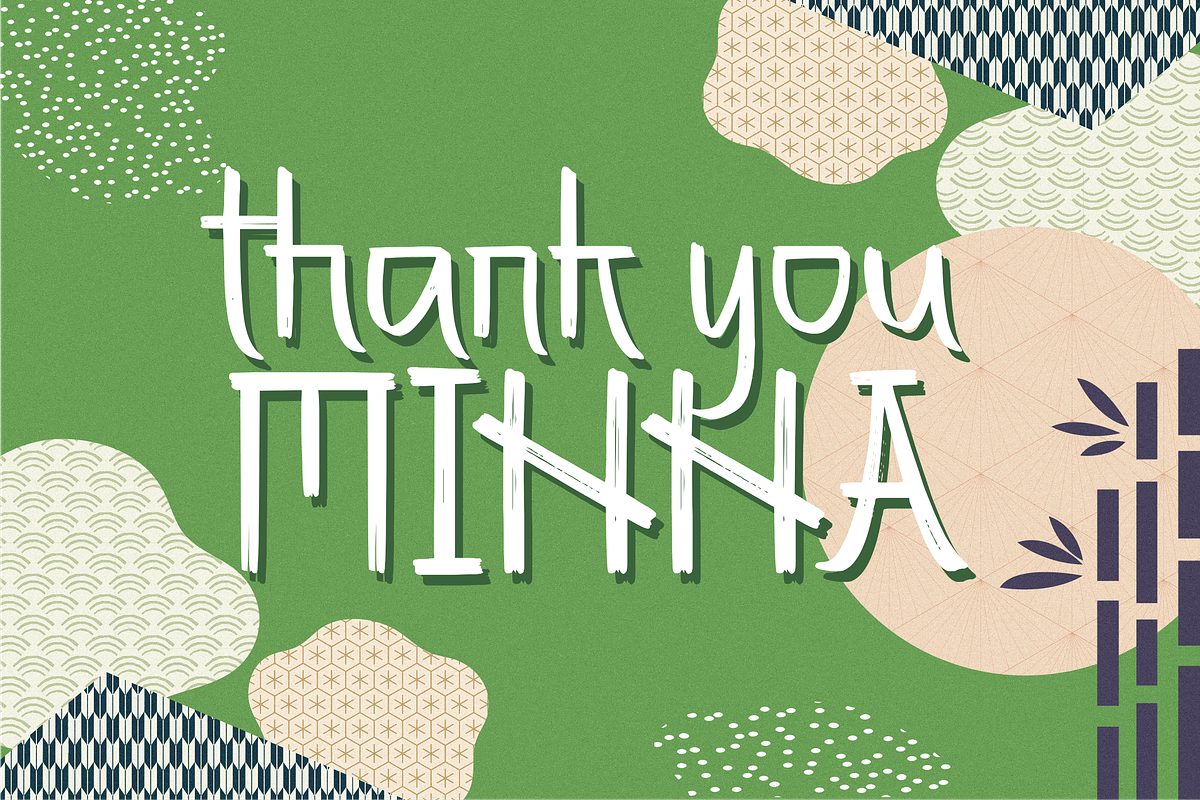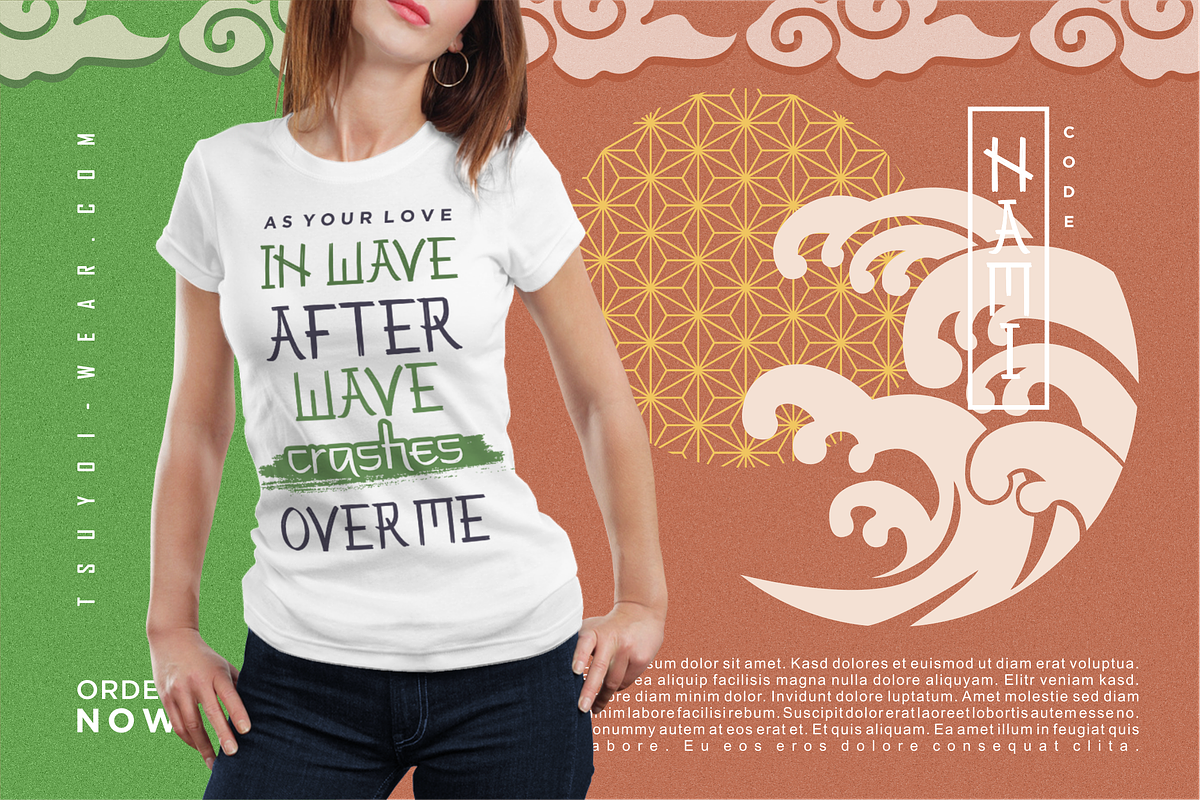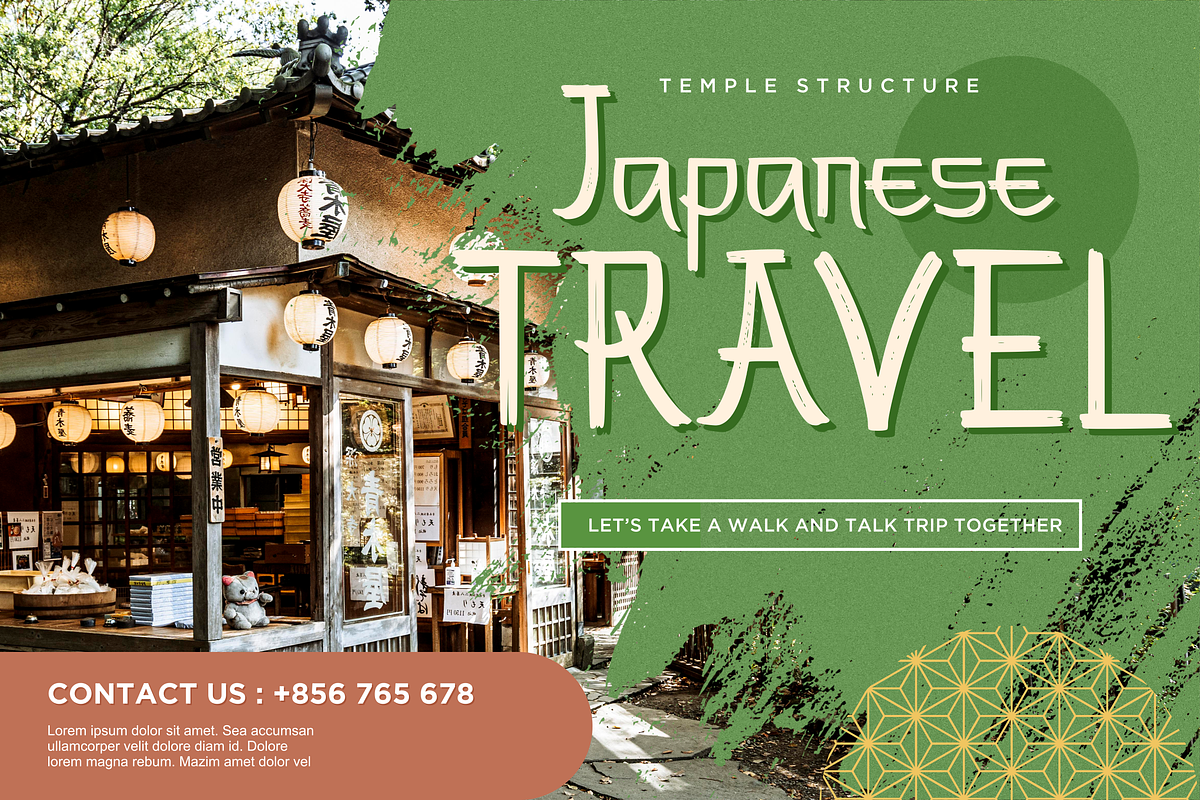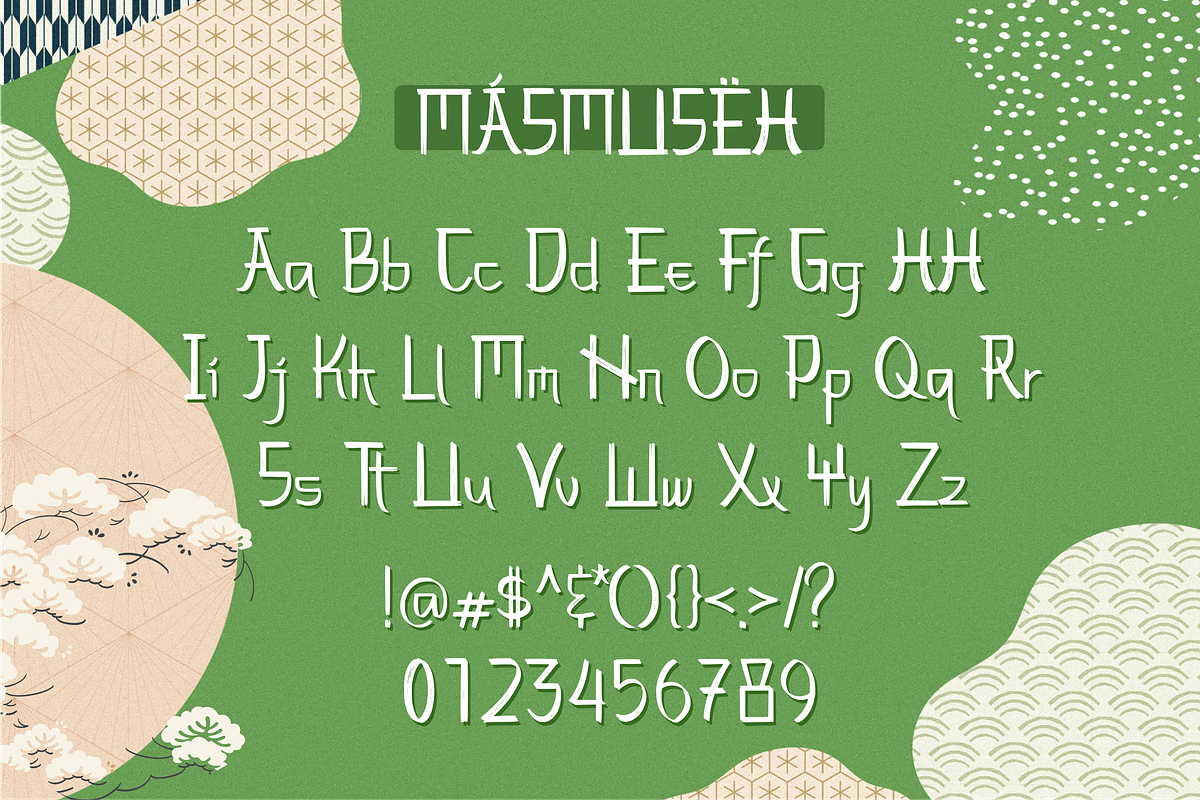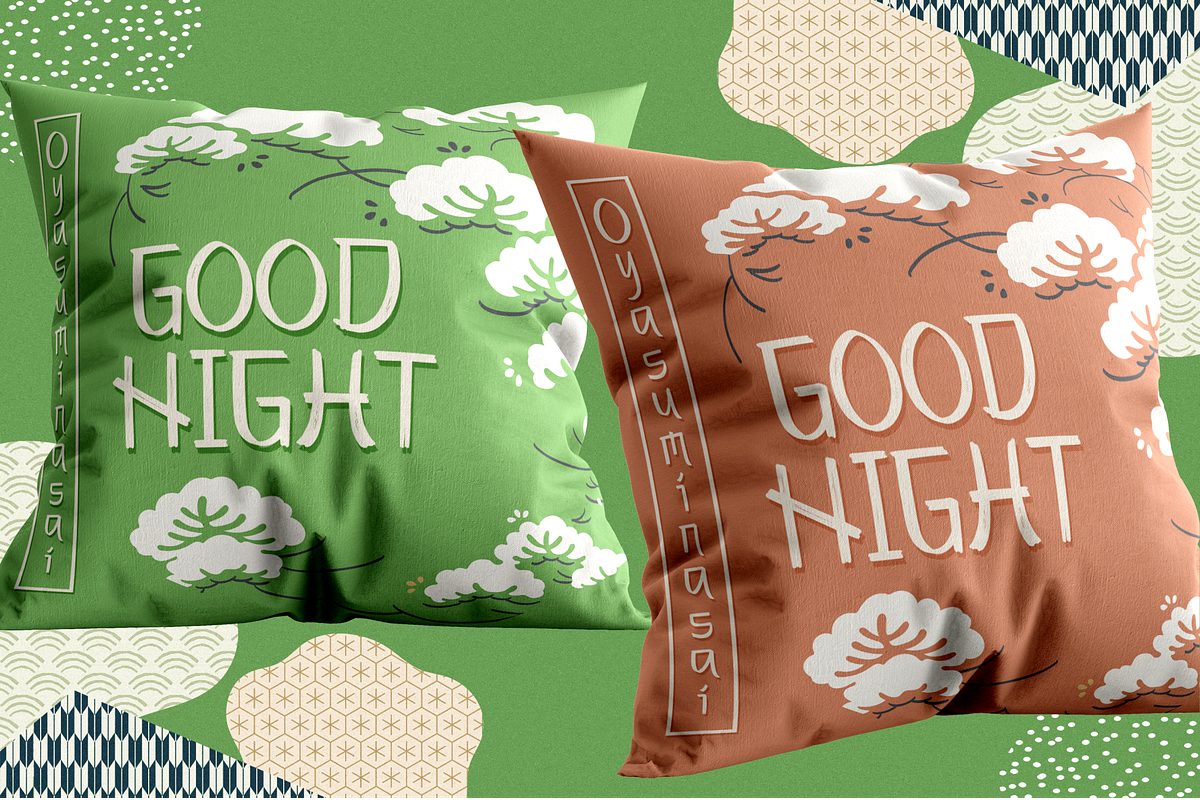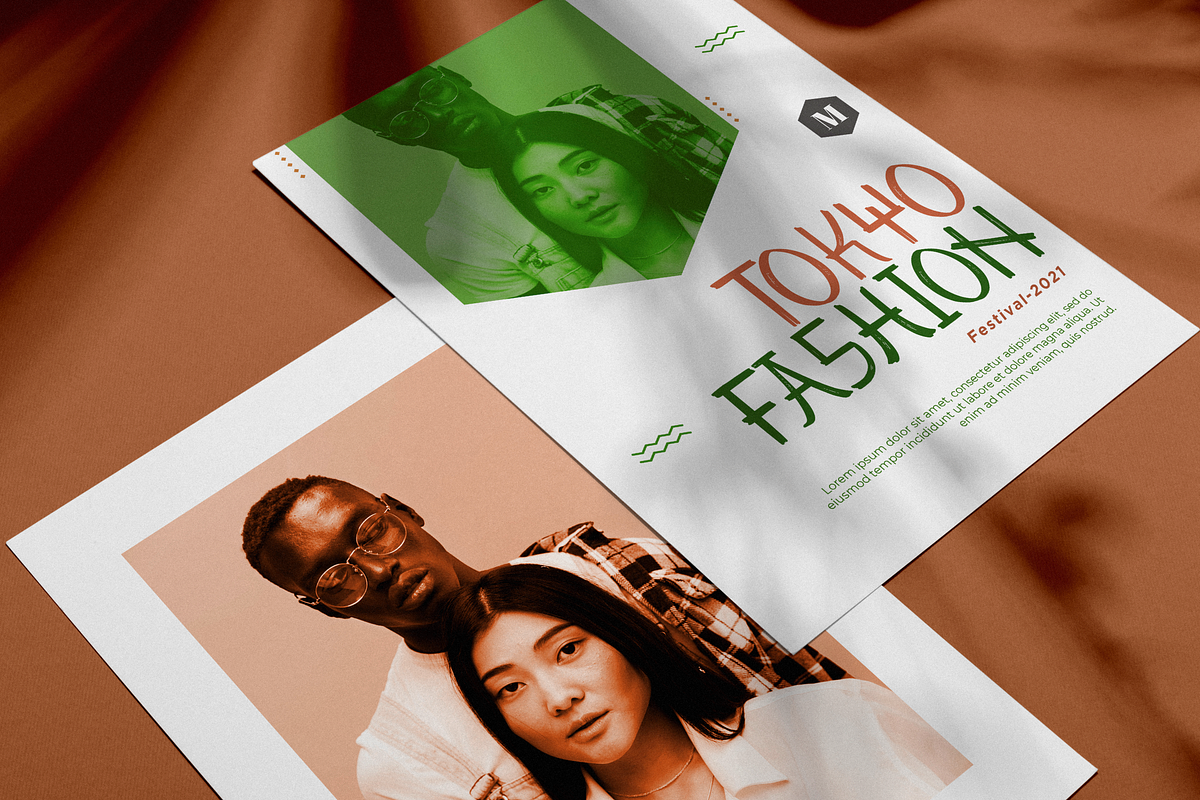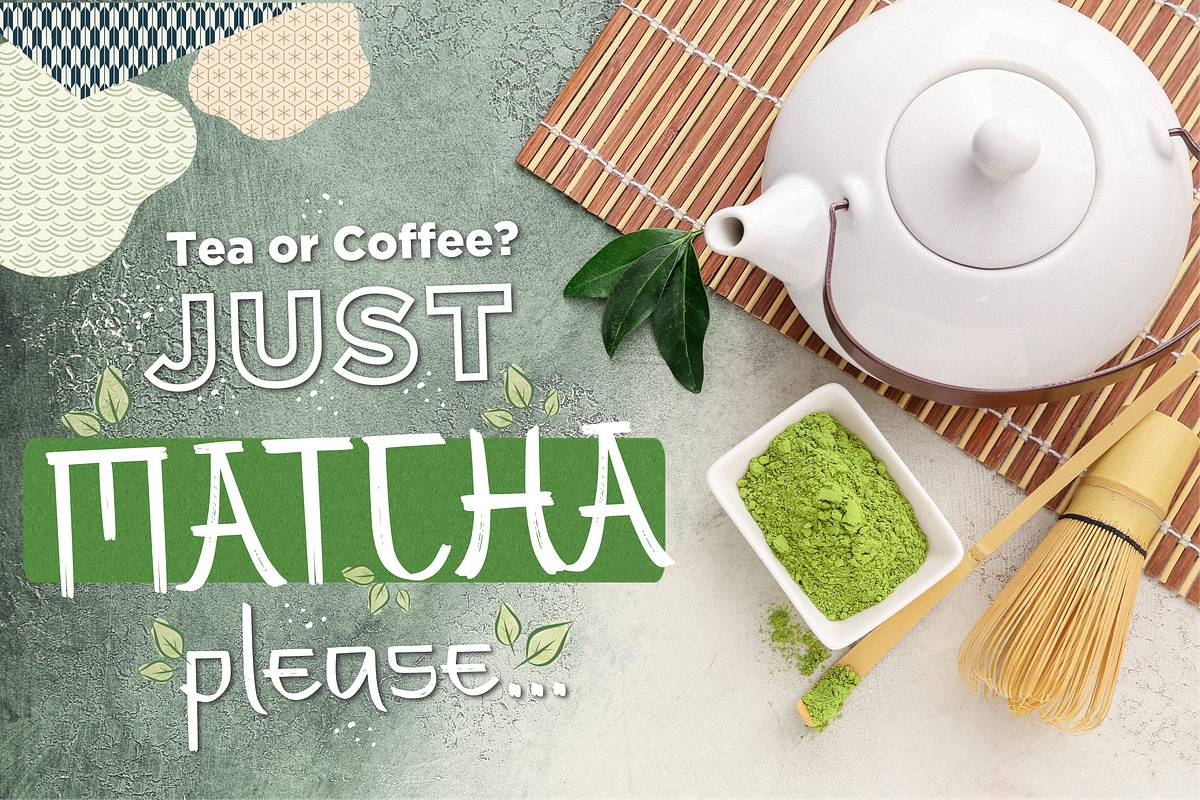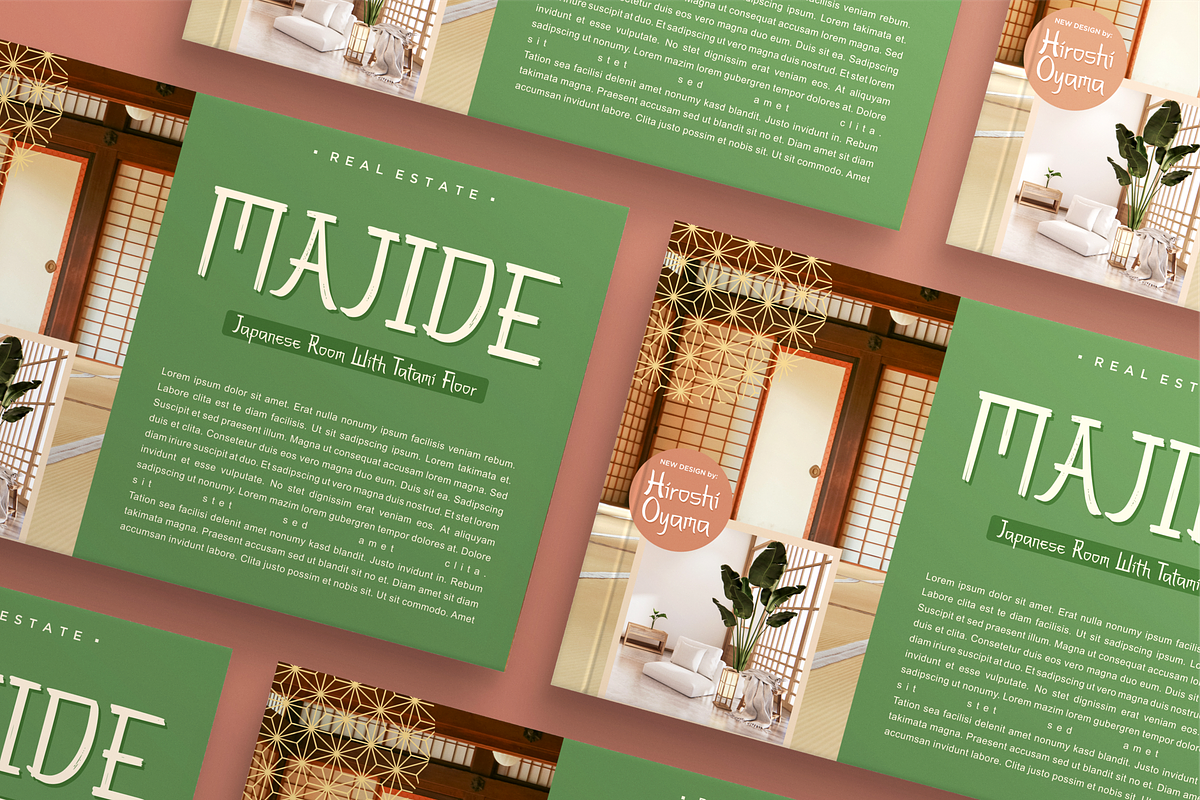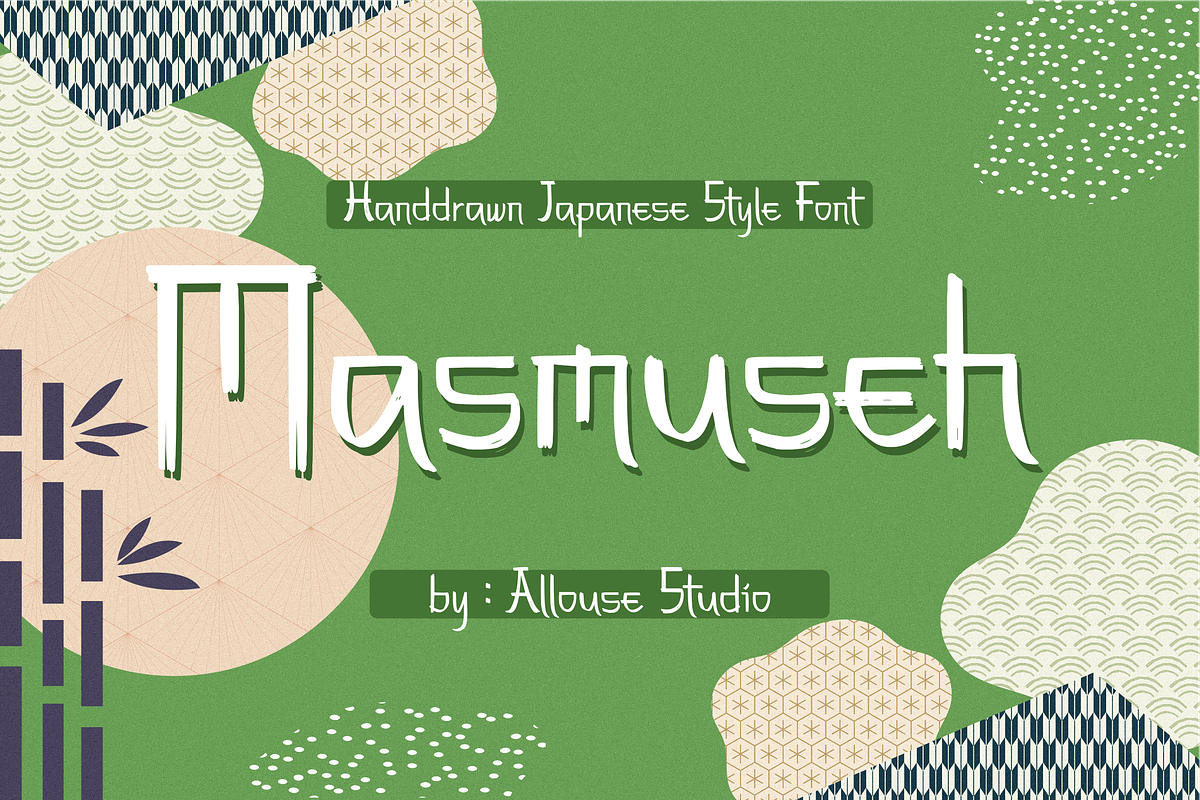
Masmuseh Font
Introducing by Allouse.Studio
Proudly Present, Masmuseh.
Masmuseh is a Handdrawn Japanese Style Font.
Masmuseh is perfect for product packaging, branding project, megazine, social media, wedding, or just used to express words above the background.